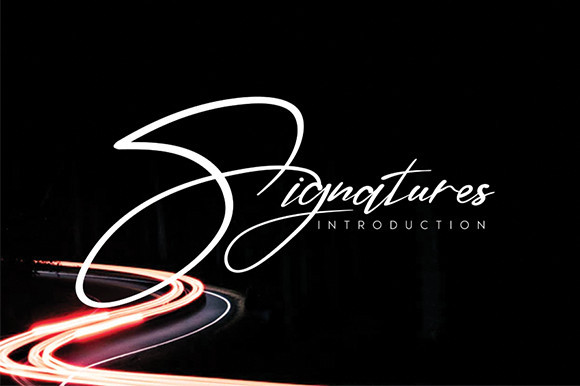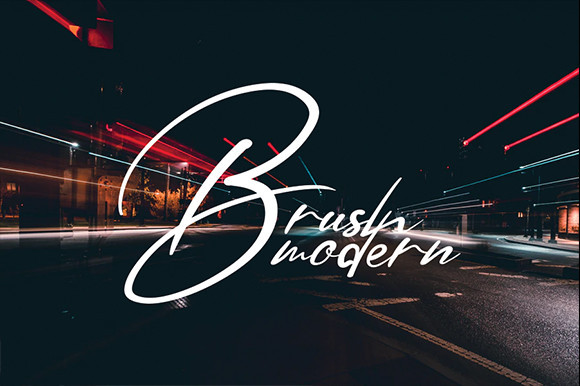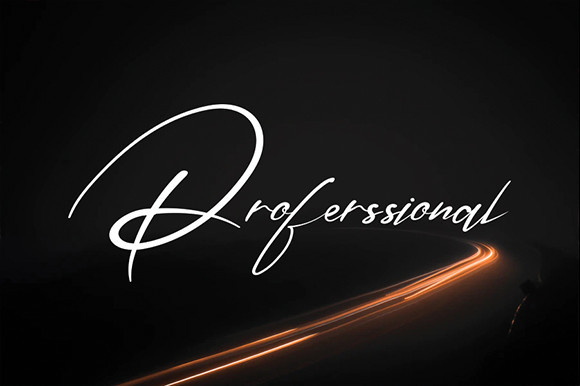
Signatures Font
Signatures is a unique handwritten font. This is a beautiful combination of timeless elegance and authentic calligraphy. It features an incredibly classic style, while still keeping a friendly feel. Signatures is the perfect font for making original and outstanding designs.